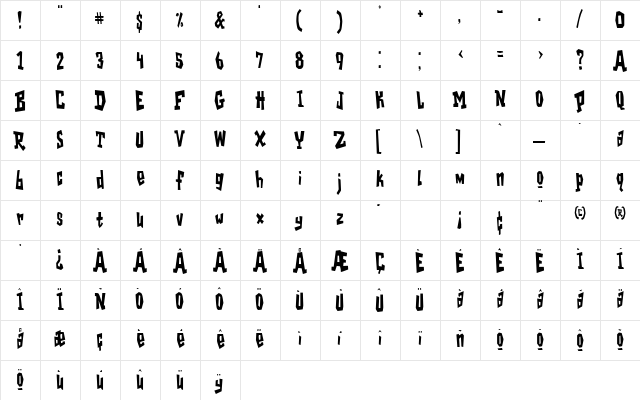
GarageShockCondensed Regular
Design Context for GarageShockCondensed Typeface
GarageShockCondensed is a composed and adaptable typeface that performs quietly and consistently across a wide range of design contexts. The condensed width makes it efficient for tight spaces without sacrificing legibility.